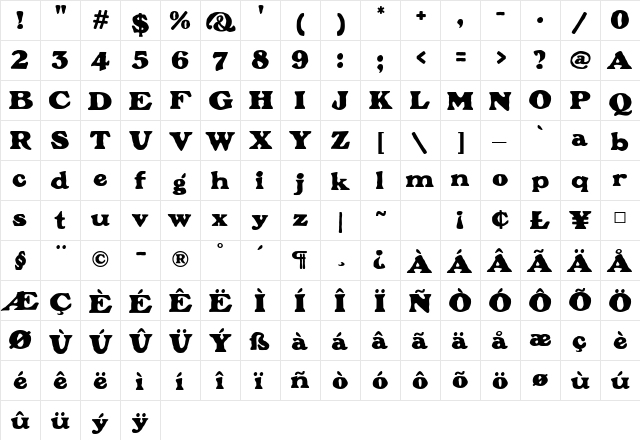
Plymouth MF Regular
Design Context for Plymouth MF Typeface
Plymouth MF takes a measured approach to typography — its balanced proportions and neutral character make it a reliable workhorse for both digital and print work.